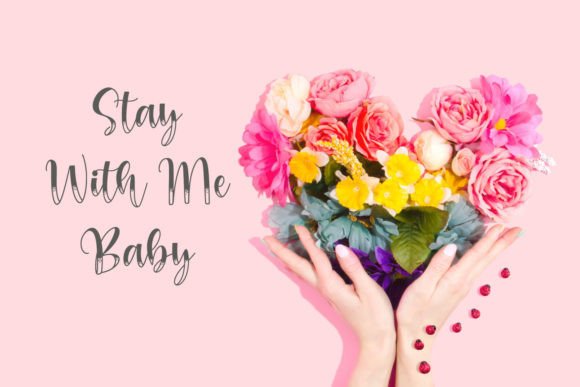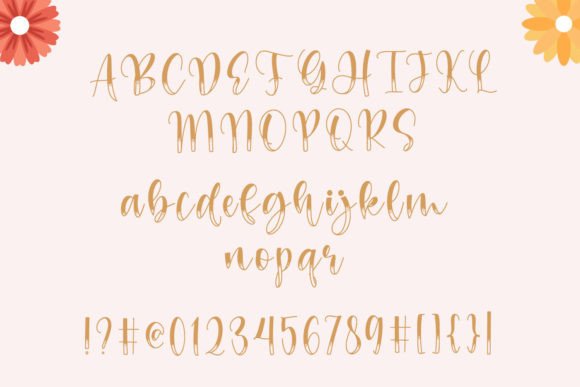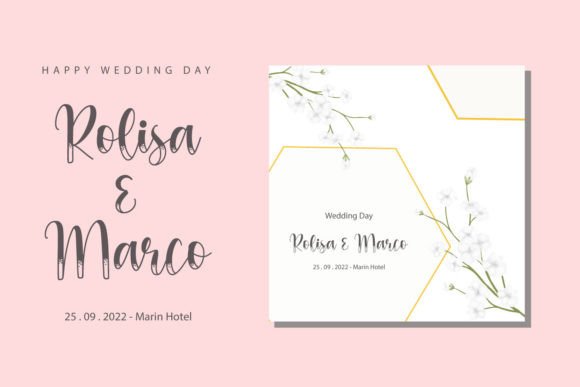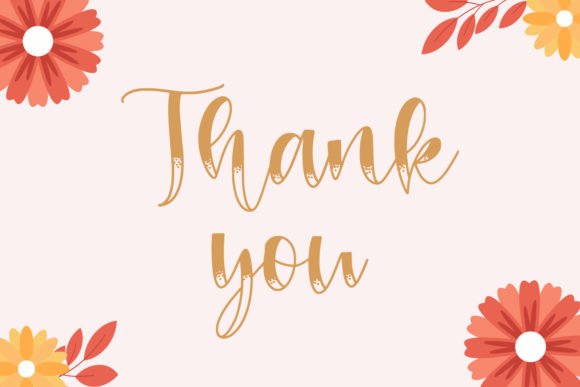
Celinta Font: Elevate Your Designs with Elegance
Are you looking for a font that exudes elegance and sophistication? Look no further than Celinta Font, a beautiful flowing handwritten font that is perfect for adding a touch of refinement to your favorite projects. With its smooth, cursive lines and artistic flair, Celinta is sure to become your go-to font for a wide range of design applications.
The Characteristics of Celinta Font
Celinta Font is a carefully crafted handwritten font that boasts an elegant touch. Its flowing lines and curves create a sense of movement and fluidity, making it perfect for designs that require a sense of dynamism and energy. The font’s letters are intricately designed, with subtle variations in line width and texture that give it a organic, hand-crafted feel.
What Makes Celinta Font So Versatile?
One of the key benefits of Celinta Font is its versatility. Whether you’re designing a logo, creating a social media graphic, or crafting a beautiful wedding invitation, Celinta is the perfect choice. Its elegant lines and refined aesthetic make it suitable for a wide range of design applications, from formal events to everyday branding.
Celinta Font is a dream come true for designers and crafters who are looking for a font that can help them create stunning, professional-grade designs. With Celinta, you can add a touch of sophistication and elegance to your work, setting it apart from the competition. Whether you’re a seasoned designer or a DIY crafter, Celinta Font is the perfect tool to help you achieve your creative vision.
Tips for Using Celinta Font
To get the most out of Celinta Font, here are a few tips to keep in mind:
- Use Celinta as a headline font to add a touch of elegance to your design.
- Pair Celinta with a simpler font for body text to create a beautiful contrast.
- Don’t be afraid to get creative and try out new and innovative design ideas.
Celinta Font in Action
So what does Celinta Font look like in action? Here are a few examples of how you can use Celinta to elevate your designs:
- Wedding Invitations: Use Celinta to create beautiful, elegant wedding invitations that set the tone for a sophisticated and refined wedding celebration.
- Branding: Use Celinta as a logo font or for packaging design to add a touch of elegance and sophistication to your brand.
- Social Media Graphics: Use Celinta to create eye-catching social media graphics that stand out from the crowd.